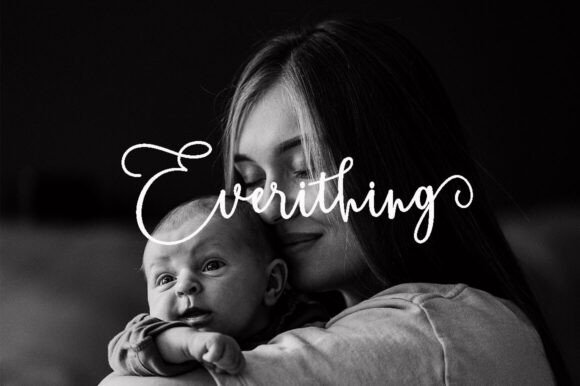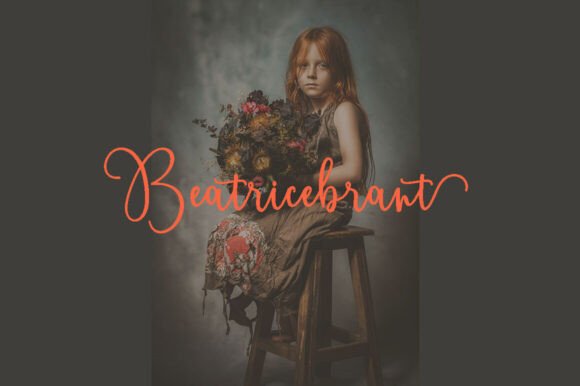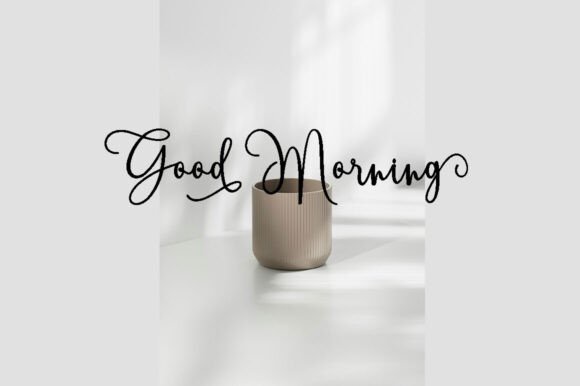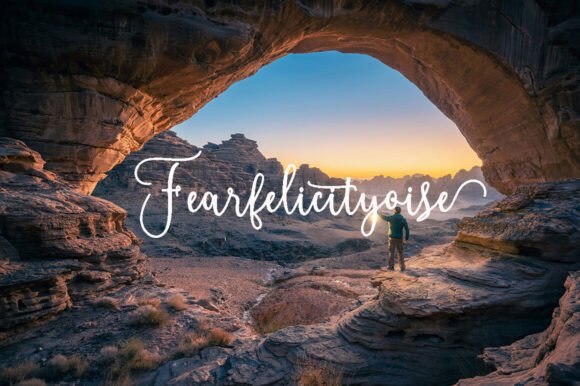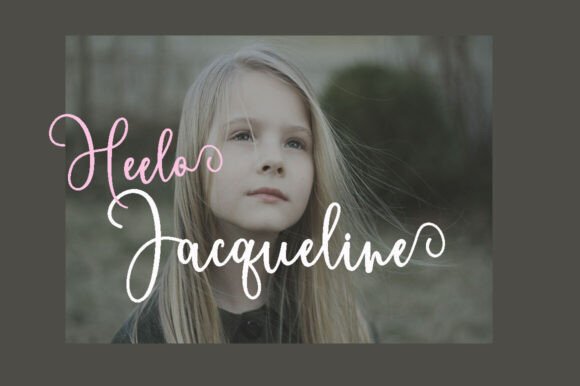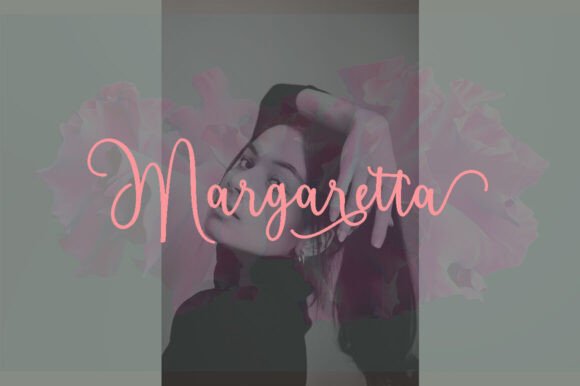
Introduction to Hunthingline Script Font Font
Fonts play a crucial role in design, and the Hunthingline Script Font font is a typeface that brings both character and versatility to any project. Whether you’re working on a branding project, a website, or a print design, the Hunthingline Script Font font offers a unique style that can elevate your work.
Huntingline Script combines modern and elegant fonts, maintaining a feminine and graceful styleβperfect for a variety of design needs.
This handcrafted typeface is ideal for logos and branding, invitations, stationery, wedding designs, social media posts, advertisements, printed quotes, product packaging, labels, photography watermarks, special events, and even magazine layouts .
Key Features of Hunthingline Script Font Font
Why Choose Hunthingline Script Font Font?
The Hunthingline Script Font font is more than just a typeface β it’s a design tool that helps you communicate your message with style and clarity. Its unique character set and versatile design make it suitable for a wide range of applications, from elegant invitations to bold headlines.
With its carefully crafted letterforms and balanced proportions, the Hunthingline Script Font font ensures readability and visual appeal across all mediums.
What makes Hunthingline Script Font font special?
The Hunthingline Script Font font stands out with its unique design, exceptional readability, and versatility across various design applications.